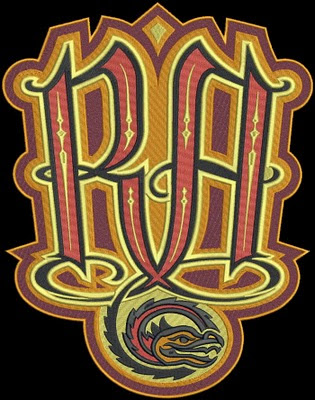
This is the next phase of the RA logo project. This image shows the thread pattern that will be used for the jacket embroidery. There are over 200,500 stitches in this logo which will fill the back jacket panel. Prior to converting the original B/W art to a CAD file I redrew the logo to add more impact to the letters.